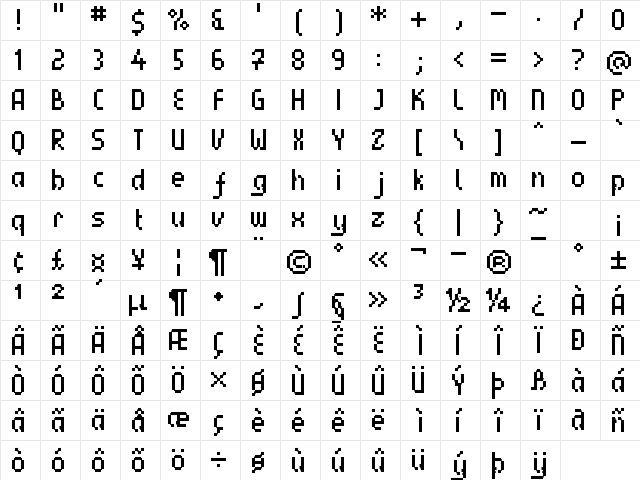
Complete UF PT Lucy Condensed Regular glyph index. Displaying only characters natively supported by UF PT Lucy Condensed Regular font.
UF PT Lucy Condensed is a composed and adaptable typeface that performs quietly and consistently across a wide range of design contexts. Its narrow stance lets it pack a punch even in space-constrained designs.